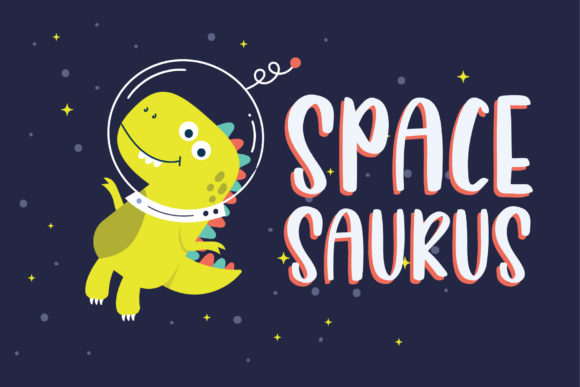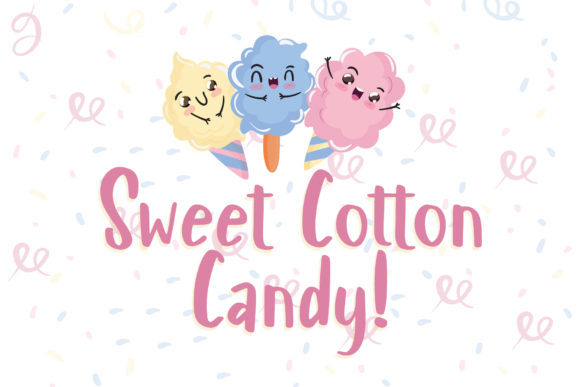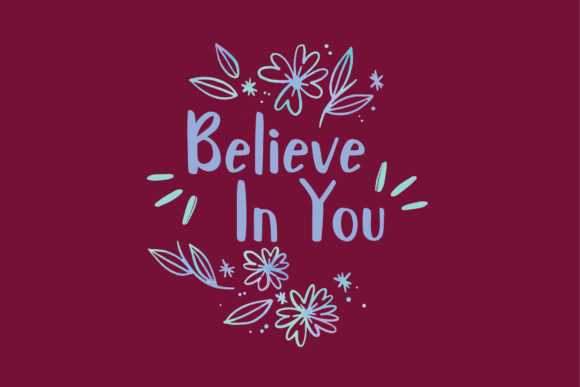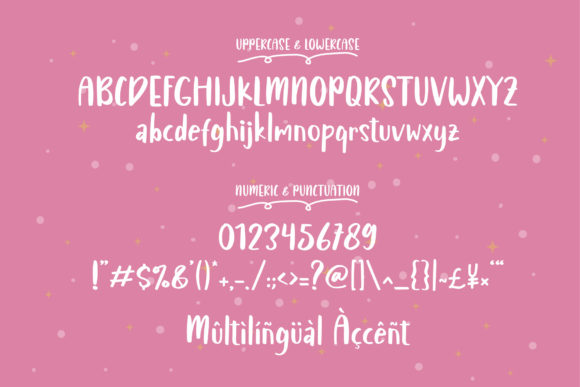
Introduction to Donuts Frozen Font
Donuts Frozen is a cute and quirky display font.
It will add an incredibly joyful touch to your designs Add this beautiful display font to each of your creative ideas and notice how it makes them stand out.